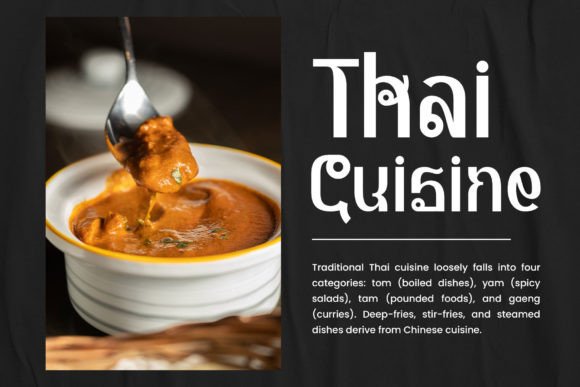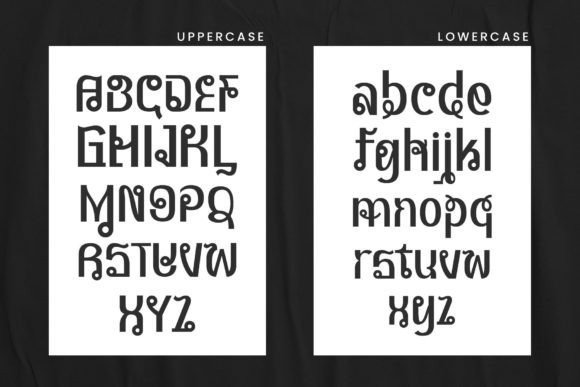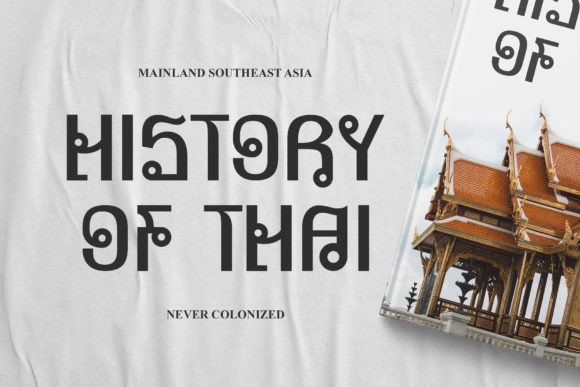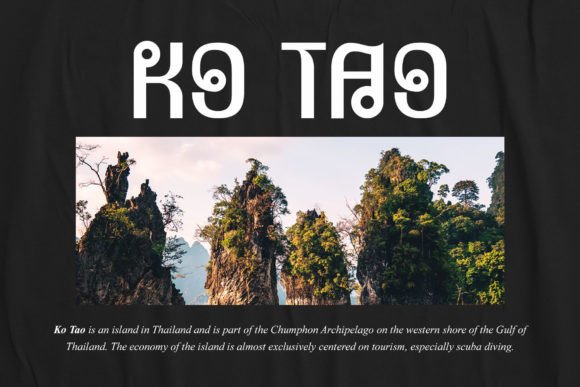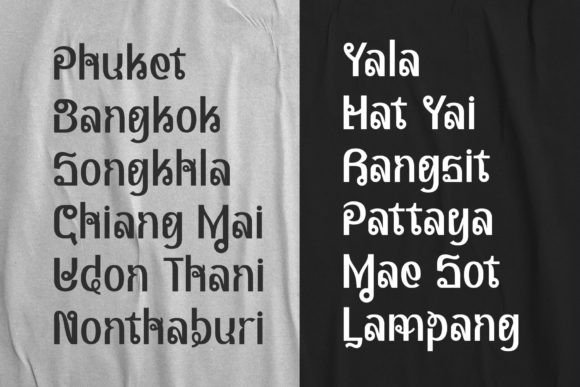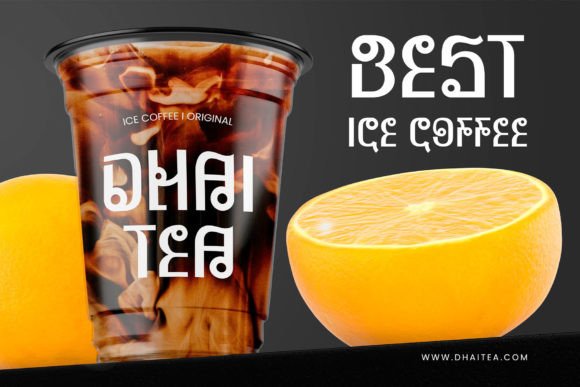
Introduction to Nakhon Kanlaya Font
Introducing “Nakhon Kanlaya” an experimental font inspired by the common characters from the Thai letters.
Perfect for packaging, stickers, poster, promotion, and more Thai local letters have snaking shapes, dominated by curves and circles which give a strong traditional impression, especially with the cultural and culinary taste like Thai Tea, Thailand dance, and buildings that exist there.
Key Features of Nakhon Kanlaya Font